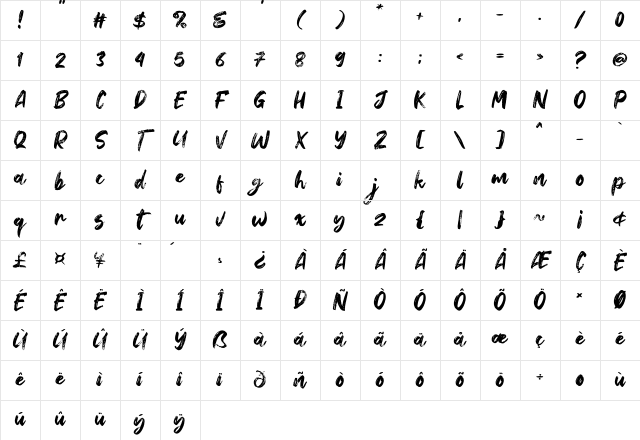
Complete Hey October Regular glyph index. Displaying only characters natively supported by Hey October Regular font.
Hey October is a composed and adaptable typeface that performs quietly and consistently across a wide range of design contexts.